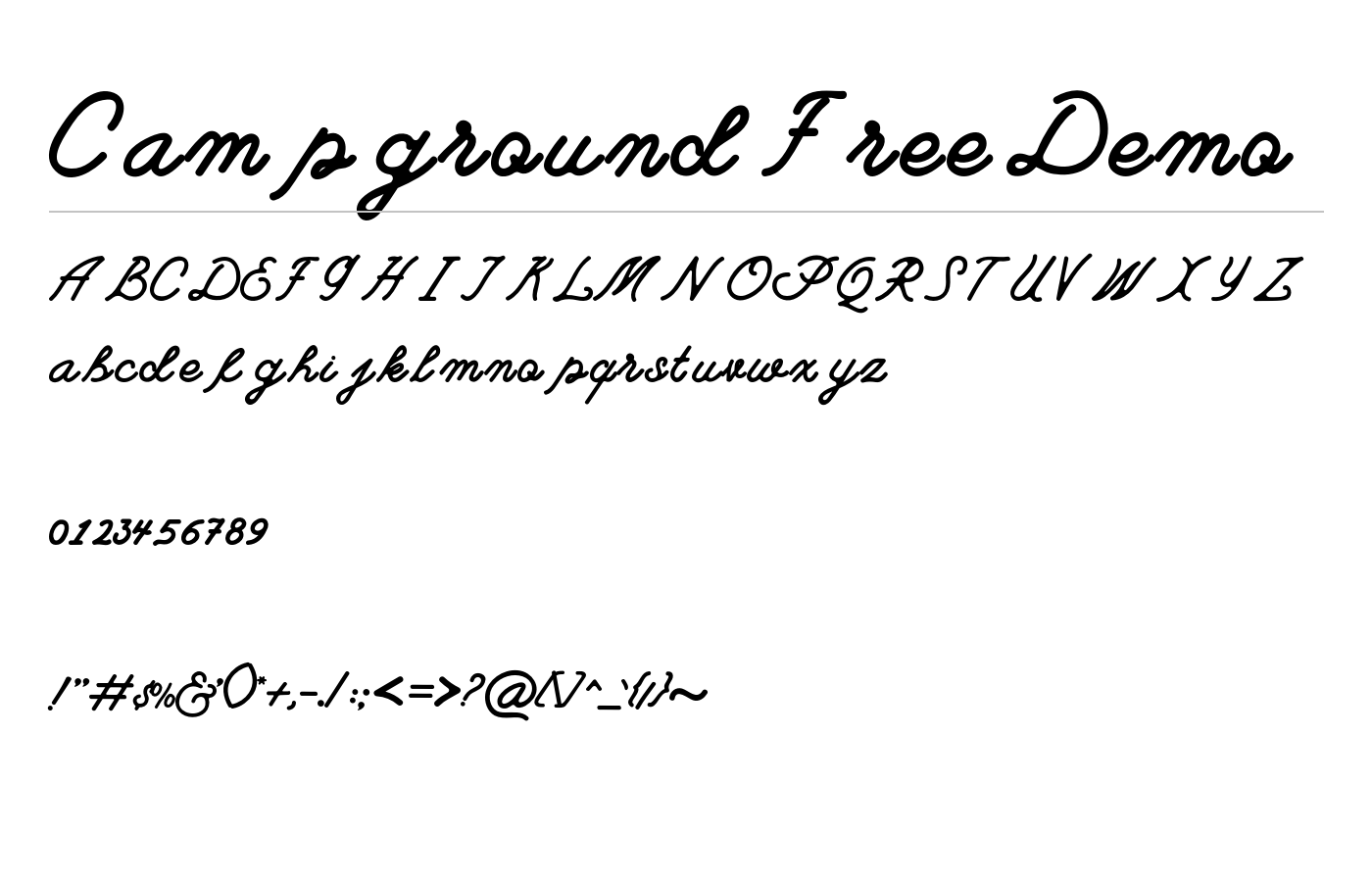
Campground Free Demo is a charming script font with a smooth, flowing style that mimics natural handwriting. Its gentle curves and moderate weight make it feel friendly and approachable, ideal for casual and creative projects. This font works well for invitations, branding for artisanal or lifestyle products, and any design aiming for a warm, personal touch.
Campground Free Demo Font
About Campground Free Demo Font